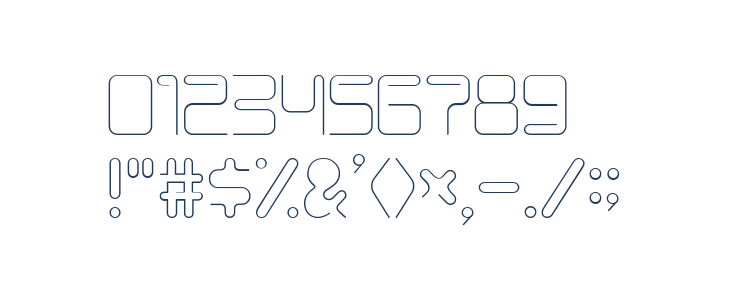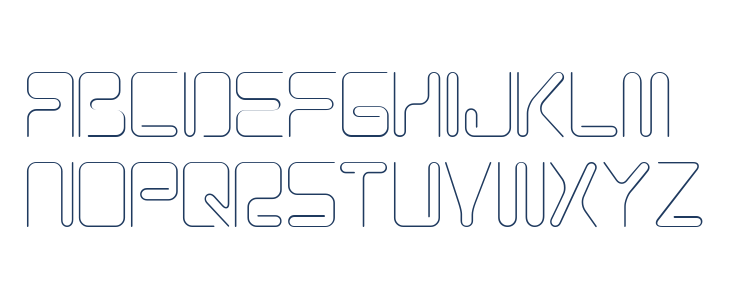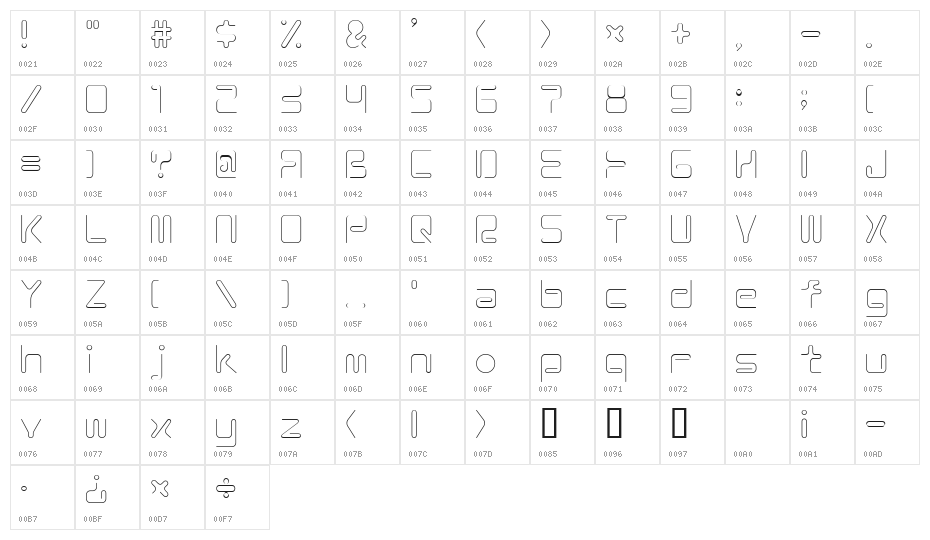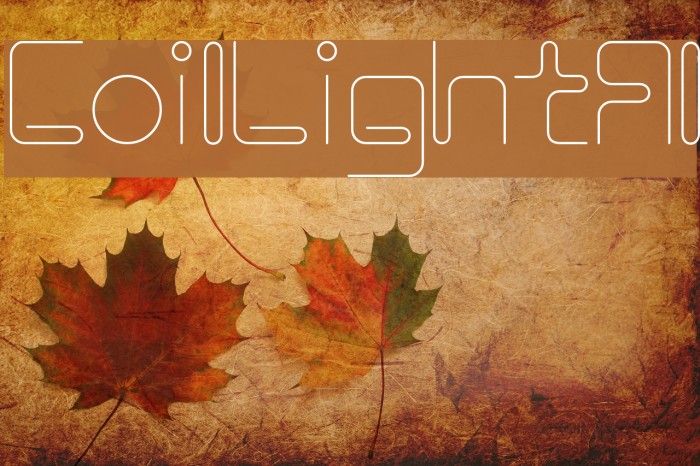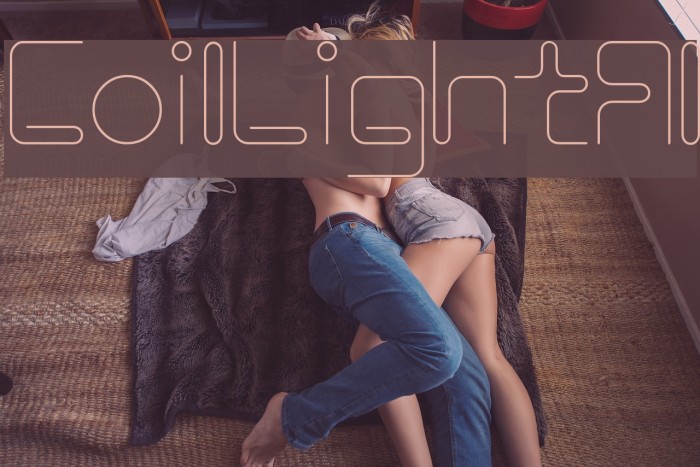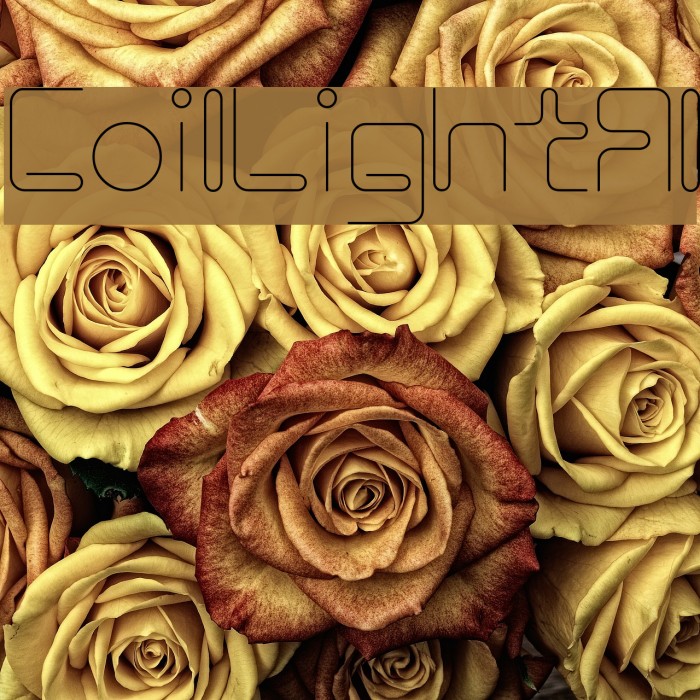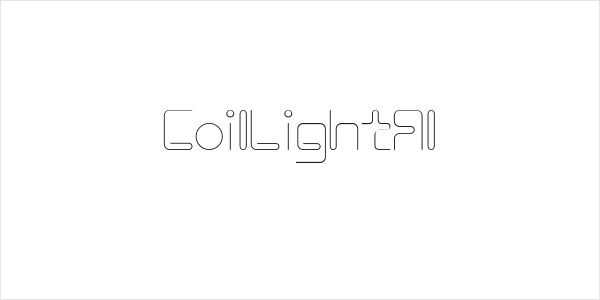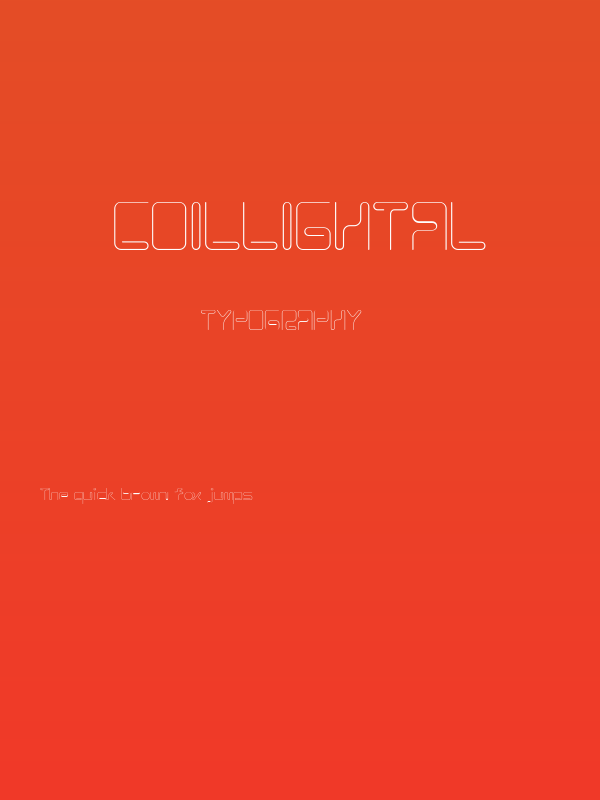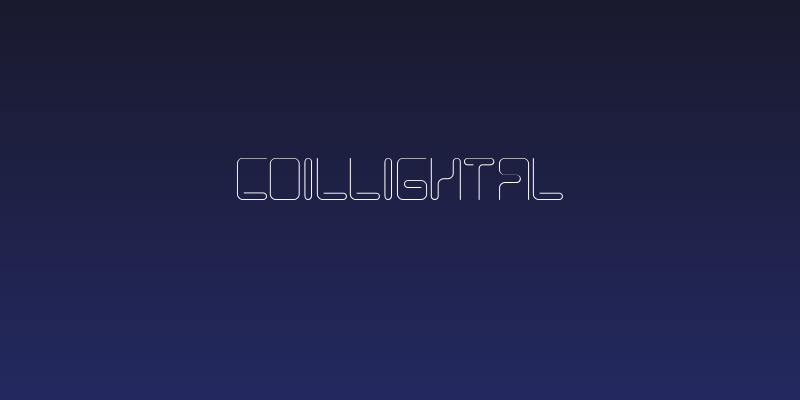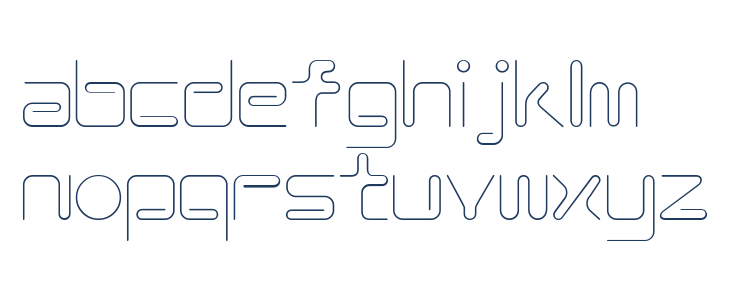
CoilLightAl Font
CoilLightAl Description
This font features a modern, geometric design with a unique, continuous line style that gives it a futuristic and minimalistic appearance. The characters are constructed with a single, unbroken line that forms each letter, number, and symbol, creating a cohesive and streamlined look. The uppercase and lowercase letters maintain a consistent height and width, contributing to a uniform and balanced aesthetic. The font's open and airy structure, combined with its rounded edges, adds a sense of elegance and sophistication. The numerals and special characters are designed to match the overall style, ensuring a harmonious visual experience. This font is ideal for projects that require a contemporary and innovative touch.
| Overall Style | Futuristic, Minimalistic |
| Proposed Projects | Ideal for tech branding, modern art projects, innovative product packaging, and futuristic website designs. |